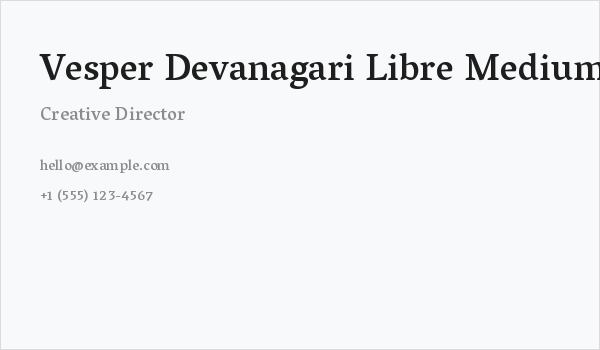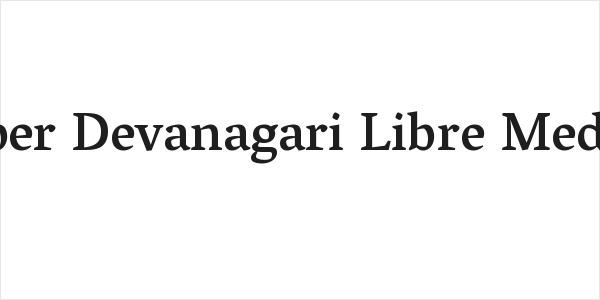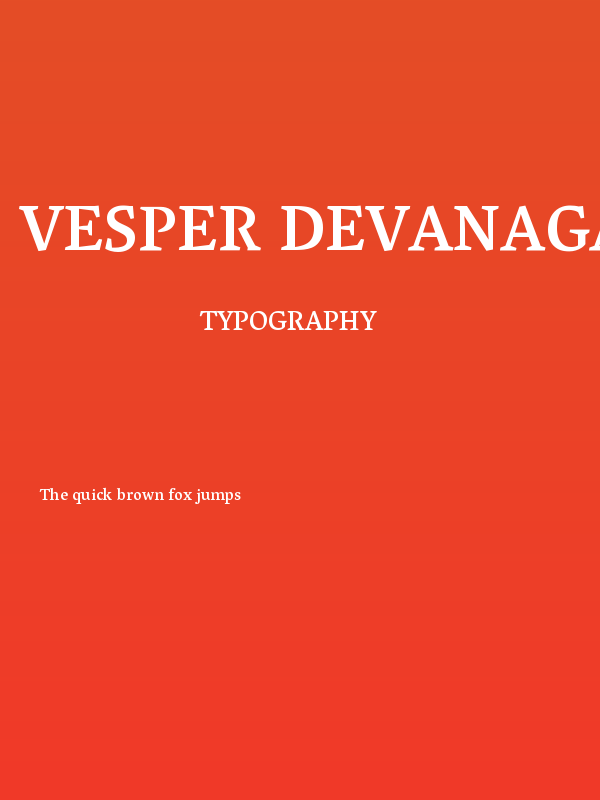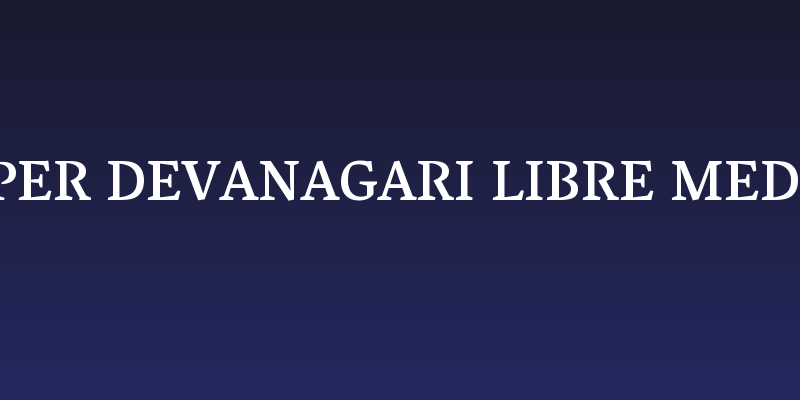
Vesper Devanagari Libre Medium Font
Vesper Devanagari Libre Medium Description
This font features a classic serif style with a medium weight, providing a balanced and readable appearance. The characters exhibit a traditional serif design with slight flaring at the ends, giving it a timeless and elegant look. The uppercase letters are bold and commanding, while the lowercase letters maintain a consistent and harmonious flow. Numbers are clear and distinct, making them suitable for both text and numerical data. The special characters are well-defined, ensuring clarity in various contexts. Overall, this font combines classic serif elements with a modern touch, making it versatile for multiple applications.
| Use Case | Headlines, Body text, Editorial design |
| Proposed Projects | Ideal for editorial design, book covers, formal invitations, and branding projects requiring a classic touch. |